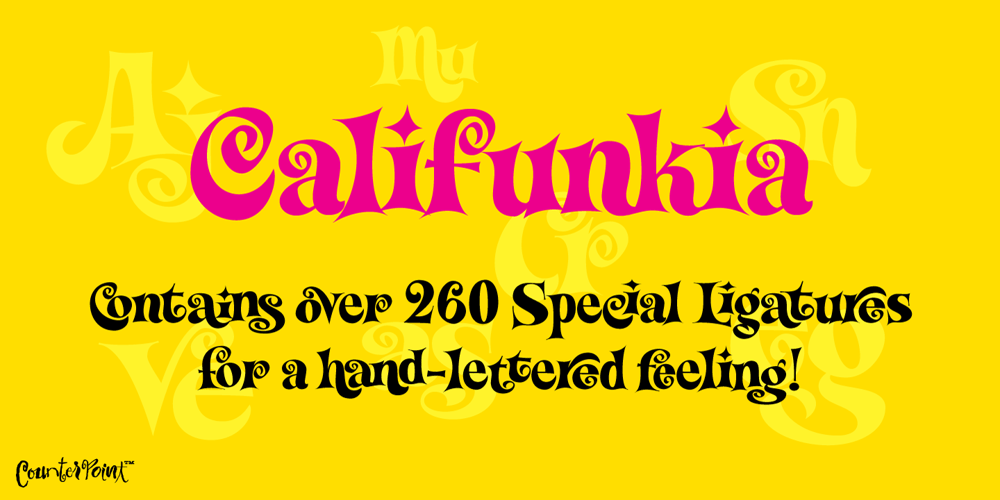
Califunkia Font Family was designed by Jason Anthony Walcott and published by CounterPoint Type Studio. Califunkia contains 1 styles and family package options. A heavy, cartoonish and fun font based on a hand lettered 1960s advertisement. The hand-lettered original gave me the idea to expand this into an OpenType font with multiple interlocking ligatures. There are over 260 alternate ligatures found the in the “Discretionary Ligatures” OpenType Feature, which will lend the font a hand drawn look. The ligature glyphs can also be accessed via the glyph palette. Great for any design that requires a fun and light-hearted mood. Contains language support for both Latin-based and most Eastern European languages.